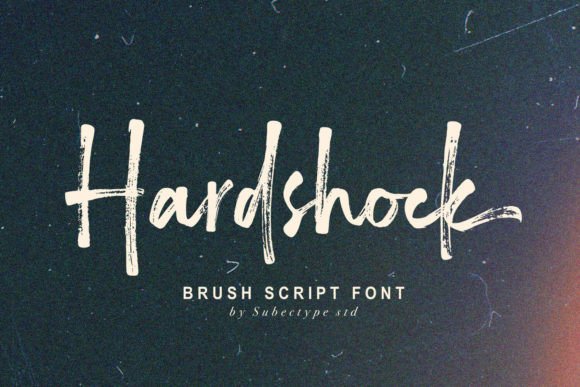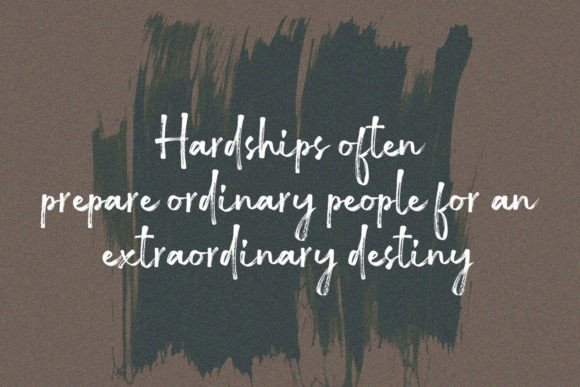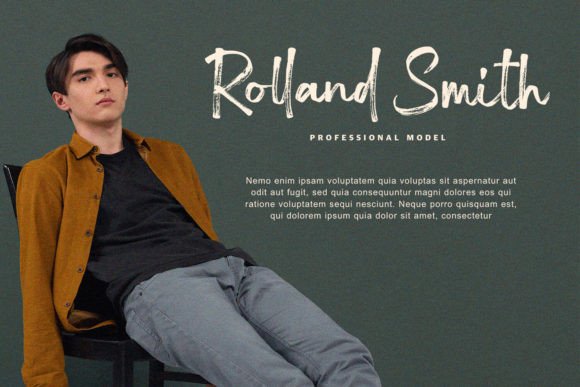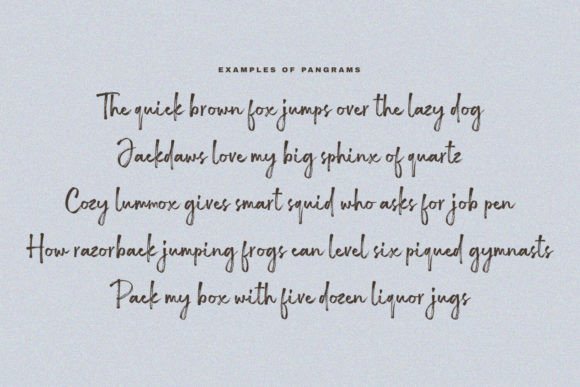
Hardshock Font: A Rustic Handwritten Script for Cricut & DIY Projects
About the Hardshock Font
From logos to headlines, the Hardshock Font is the perfect choice for making a lasting impression. Hardshock is a flowing handwritten font, described by an elegant touch, perfect for your favorite projects. Fall in love with its incredibly distinct and timeless style and use it to create spectacular designs!
Hardshock excels in headlines, short text blocks, and branding applications where its elegant, flowing nature can be showcased. Its distinct style makes it ideal for invitations, logos, or short marketing materials needing a touch of sophistication. However, its handwritten style is less suitable for body text or long paragraphs, potentially hindering readability. Avoid using it in UI design or situations requiring high legibility.
Pairing Hardshock with a clean sans-serif font like Open Sans or Lato provides a strong contrast, balancing its fluidity with a modern, structured feel. For a more classic look, consider pairing it with a traditional serif like Garamond or Times New Roman. This juxtaposition creates visual harmony while allowing Hardshock to maintain its unique personality.
Hardshock projects a sophisticated and slightly rebellious personality. It’s a font that communicates both elegance and a sense of individuality, making it suitable for brands aiming for a unique, high-end image.